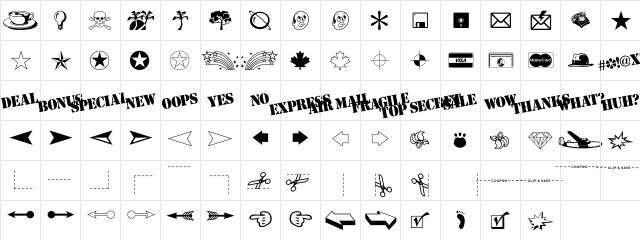
MiniPics Classic
Design Context for MiniPics Typeface
MiniPics has the warm character of retro typography — evoking diners, record sleeves, and the golden age of print advertising.
Perfect for vintage-inspired branding, retro packaging, nostalgia campaigns, and period-accurate editorial design.
Font Pairing: Combine MiniPics with a simple slab or neutral sans — period-accurate companions reinforce the vintage feel without competing for attention.
Pro Tip: Use MiniPics for headlines and pull quotes rather than body copy — its personality is best appreciated in short, focused bursts.